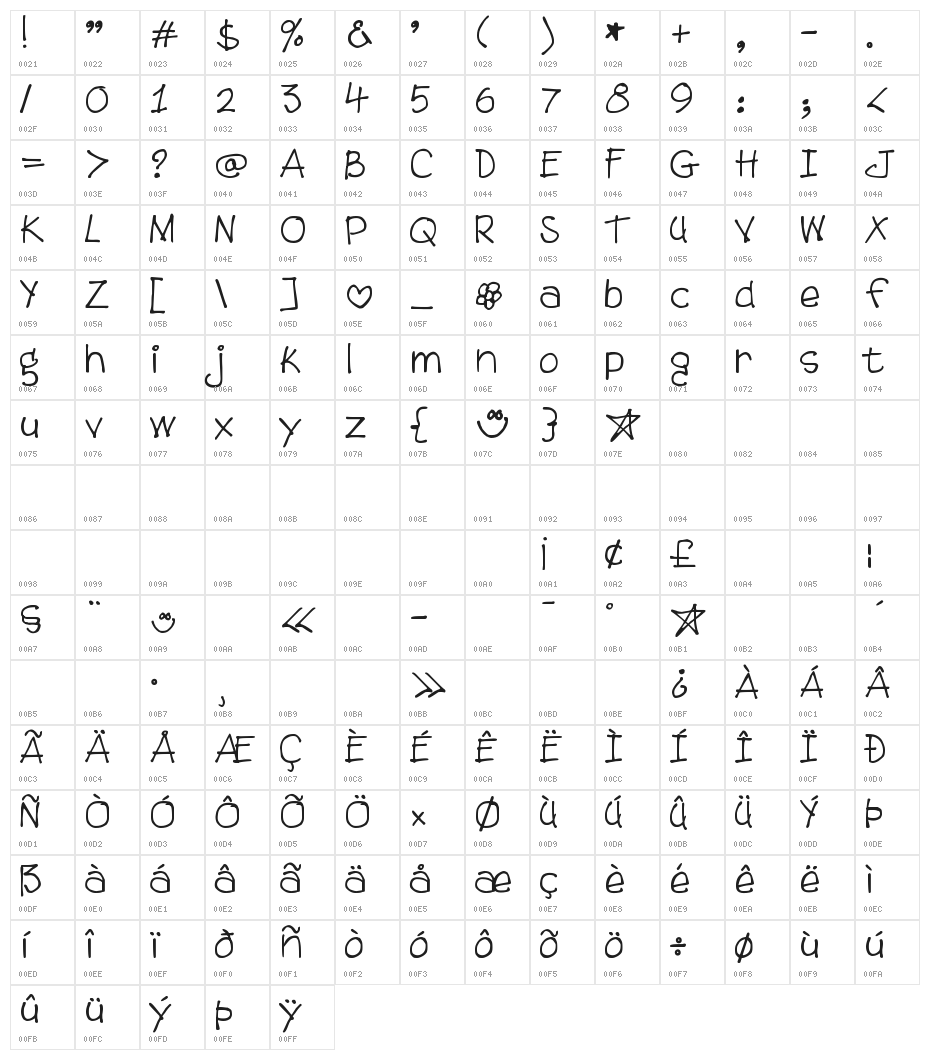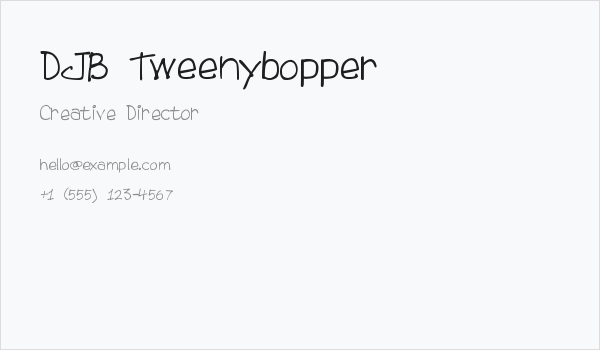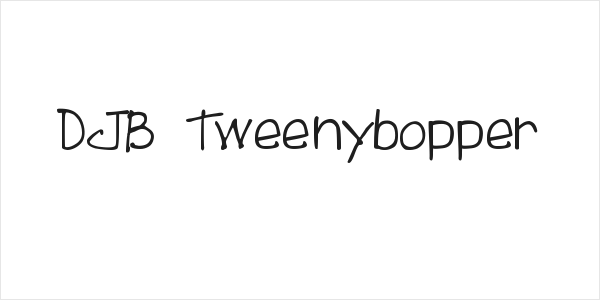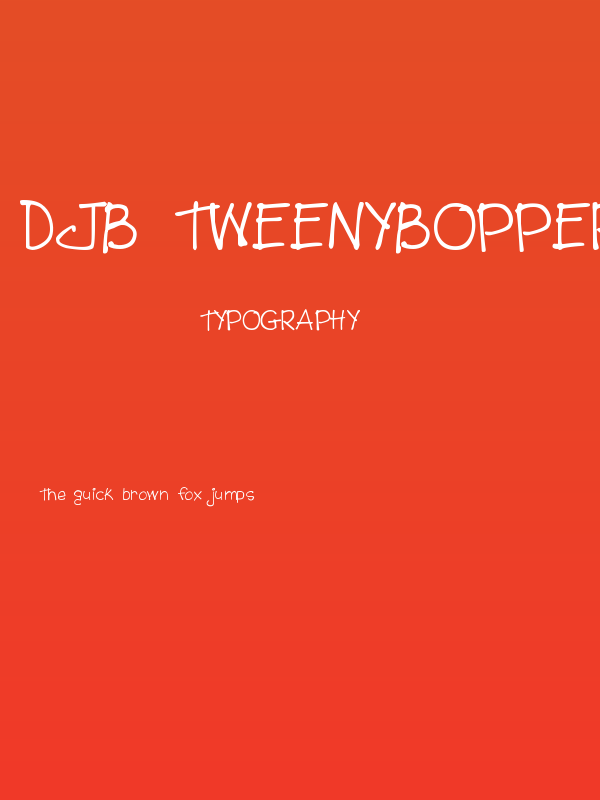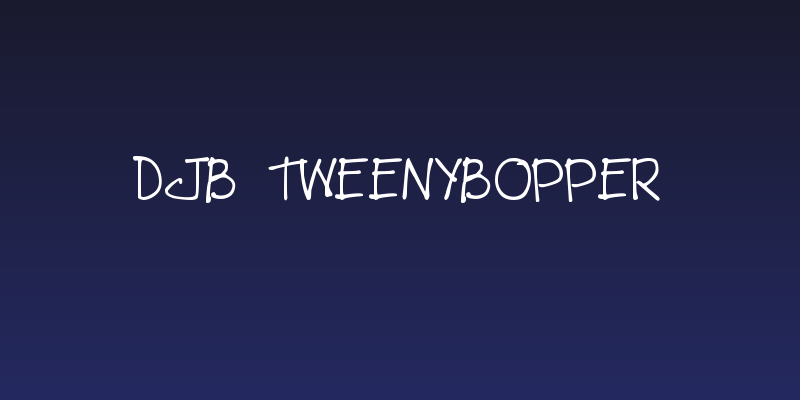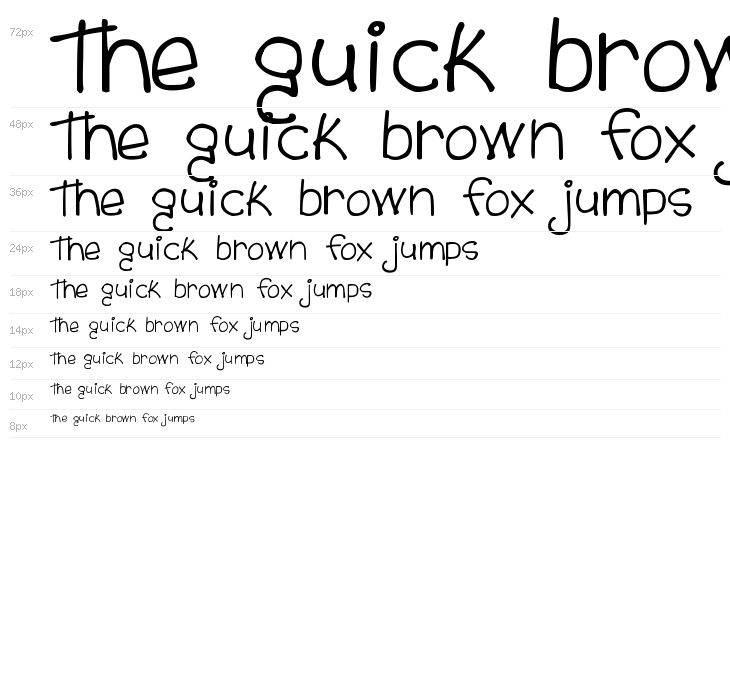
DJB Tweenybopper Font
DJB Tweenybopper Description
| Proposed Projects | Ideal for children's books, greeting cards, playful branding, and casual invitations. |